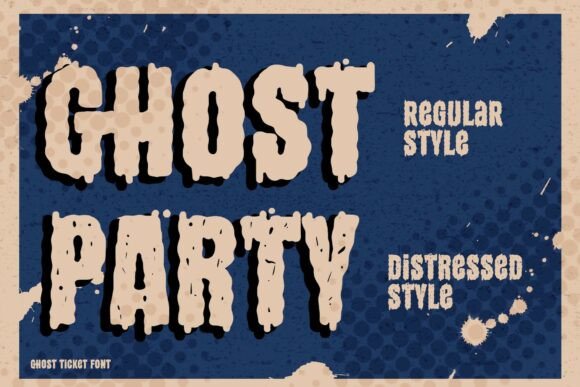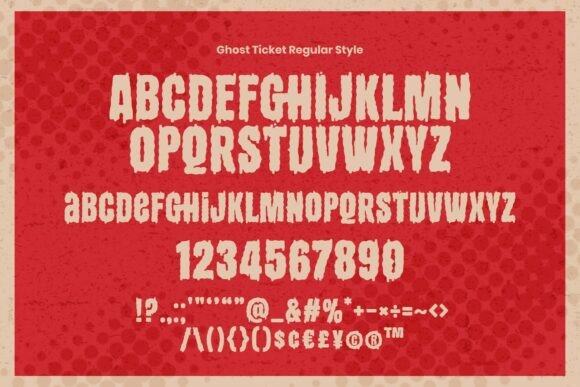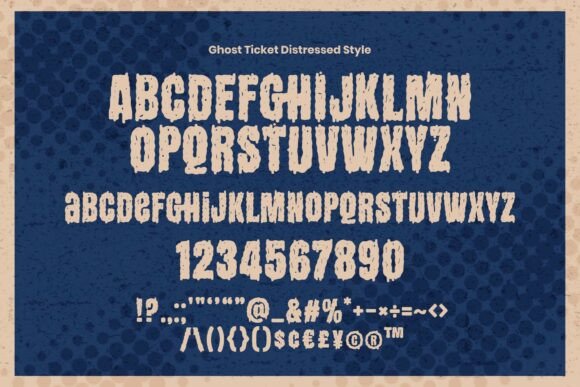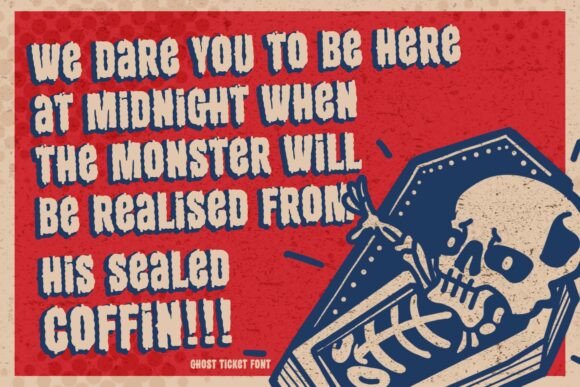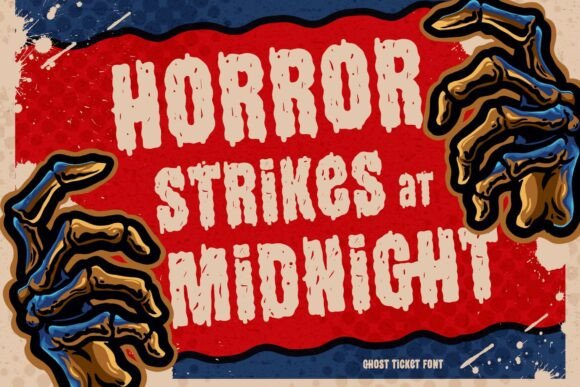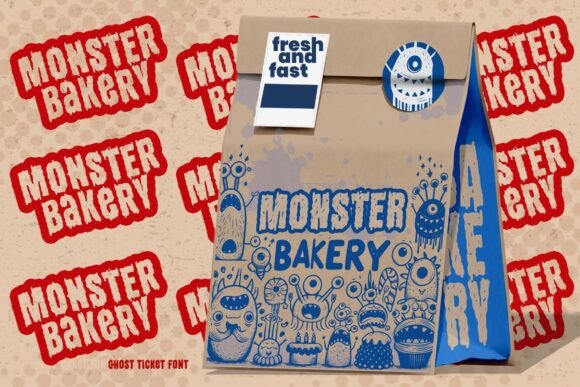
Unleash Your Creativity with Ghost Ticket: The Ultimate Horror Cartoon Style Font
Have you ever been in the middle of a design project, and suddenly, you’re stuck on finding the perfect font? I recall a recent experience where a client asked for a Halloween-themed invitation design, and I was on a mission to find a font that would capture the spooky yet playful vibe. That’s when I stumbled upon Ghost Ticket, a horror cartoon-style font that instantly became my go-to choice.
A Personal Review of Ghost Ticket
What I Love About Ghost Ticket ✨
- ✅ Unique and Playful Design: Ghost Ticket’s bold and quirky style is perfect for designs that need a touch of spookiness and fun.
- ✅ Easily Readable Characters: The font’s clear and legible characters make it ideal for various design projects, from posters to gift cards.
- ✅ OpenType Features and Glyph Variations: With access to a range of glyph variations, you can add an extra layer of creativity to your designs.
- ✅ Retro and Classic Vibes: Ghost Ticket’s inspiration from old-school horror comic covers and headlines gives it a distinct retro feel.
While Ghost Ticket is an amazing font, there are a few things to keep in mind:
- 🤔 May Not Be Suitable for Body Text: Due to its bold and playful nature, Ghost Ticket might not be the best choice for lengthy body text.
The Backstory Behind Ghost Ticket
Ghost Ticket was inspired by the retro and classic vibes of old-school horror comic covers and headlines. The font’s creator aimed to capture the playful and spooky essence of these iconic designs, infusing them with a modern twist. The result is a font that’s both nostalgic and fresh, perfect for designers looking to add a touch of horror cartoon style to their projects.
| Font Name | Ghostticket Regular Font |
| Author | Rasiorise Studio |
Q: What type of projects is Ghost Ticket best suited for?
A: Ghost Ticket is perfect for designs that need a touch of spookiness and playfulness, such as Halloween-themed invitations, posters, gift cards, and merchandise.
Q: Does Ghost Ticket support OpenType features?
A: Yes, Ghost Ticket supports OpenType features, including glyph variations and stylistic alternates.